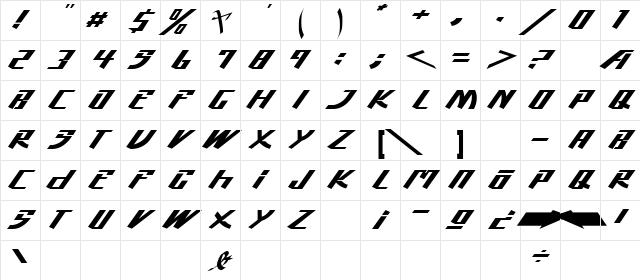
Plastic Regular
Design Context for Plastic
Plastic is a composed and adaptable typeface that performs quietly and consistently across a wide range of design contexts.